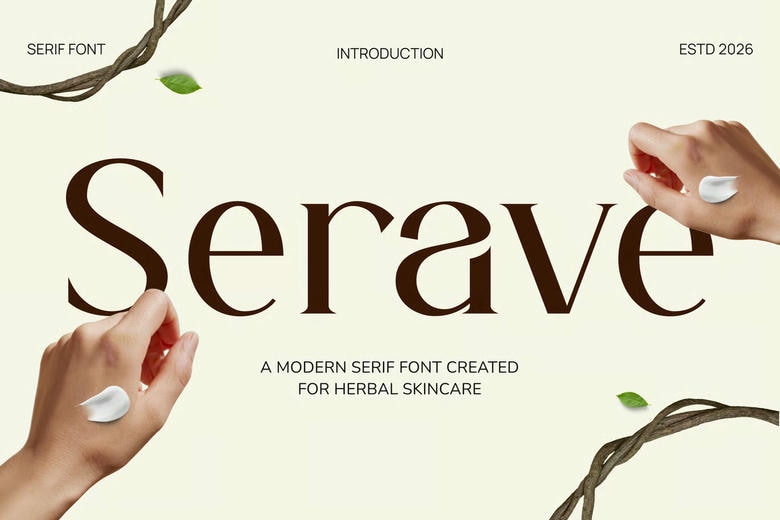
Serave Font
Serave is a serif font that adds a natural and sophisticated touch to beauty and wellness projects. Its balanced shapes and elegant details give your designs a timeless, clean, and calming style with an upscale feel.
Serave gives any project a clean and elegant look. Its versatile serif style is a great fit for logos, packaging, labels, beauty branding, social media, wellness projects, editorial layouts, cosmetics, and organic product designs.
Serave Serif Font